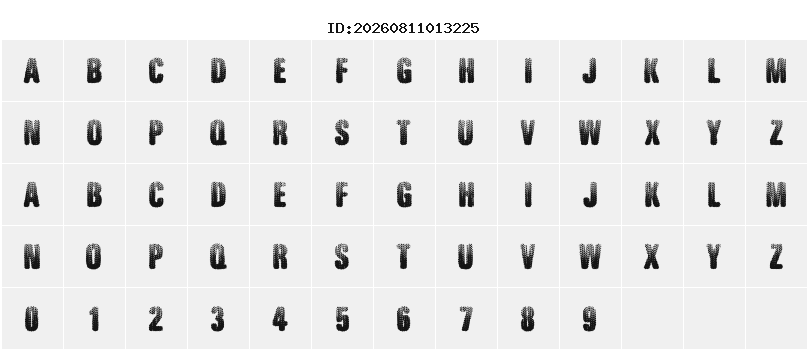
Rugged Ride Preview
• Font Name: Rugged Ride
• Font ID: S.JohnRoss: Rugged Ride: 2010
• Full Font Name: Rugged Ride
• PostScript Name: RuggedRide
• Character Count: 121
• Designer: S. John Ross
• Manufacturer: S. John Ross
About Rugged Ride.ttf
Rugged Ride.ttf is a modern, elegant sans-serif font designed for ultimate readability and visual harmony. Perfect for branding, headlines, web design, and print materials.